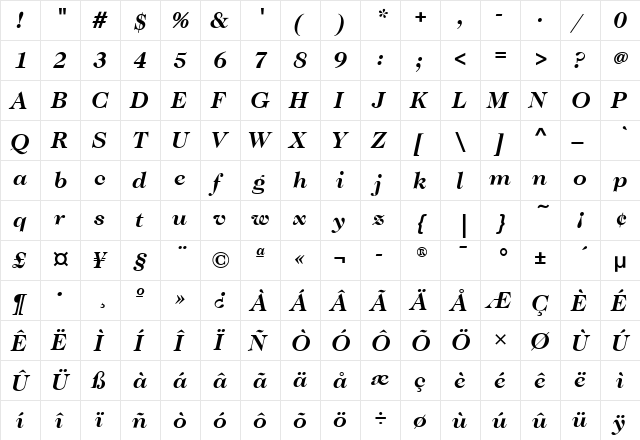
CaslonTwoTweFourITC Bold Italic
Design Context for CaslonTwoTweFourITC Typeface
CaslonTwoTweFourITC is a composed and adaptable typeface that performs quietly and consistently across a wide range of design contexts. The dynamic lean of this cut emphasises speed and emphasis in any layout. Its bold stroke weight gives it real presence on the page.
Pro Tip: Try CaslonTwoTweFourITC for annotation and caption copy alongside an upright companion — the contrast in angle creates a dynamic but ordered typographic system.